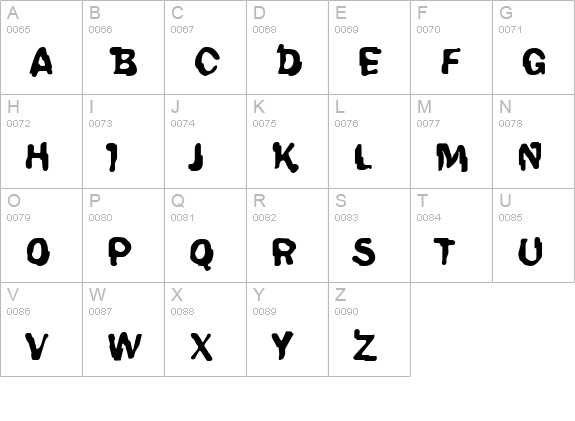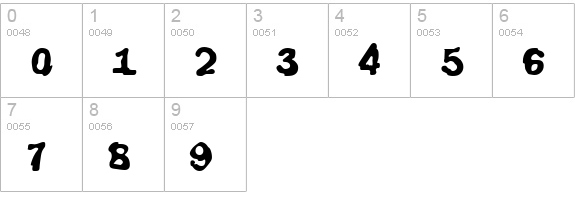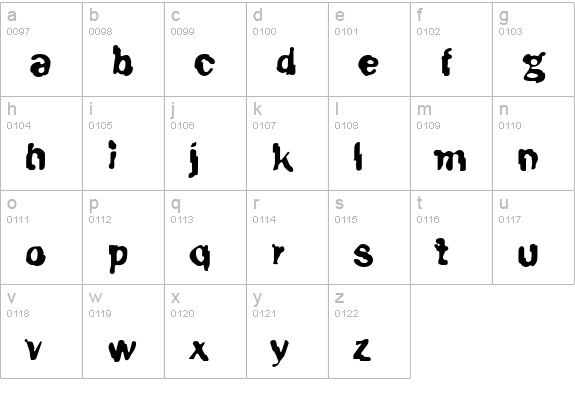
Funky39-Bold Font Details
Funky39-Bold is a strong, high-contrast variant in the Funky39 typeface family \xE2\x80\x94 well suited to headlines, attention-grabbing titles, and strong calls-to-action.
Introducing Funky39-Bold font, a playful and energetic typeface perfect for making your designs stand out! This bold and funky font exudes a sense of creativity and fun, making it ideal for a variety of projects such as posters, logos, and social media graphics. Funky39-Bold font features unique and eye-catching characters that will add a touch of personality to your designs. Its bold weight ensures that your text will be easily readable and impactful. Whether you're looking to create a bold headline or add a fun twist to your branding, Funky39-Bold font is sure to make a statement. Best of all, Funky39-Bold font is available for free download at FontsMarket.com. So go ahead and add this fun and stylish font to your collection today!